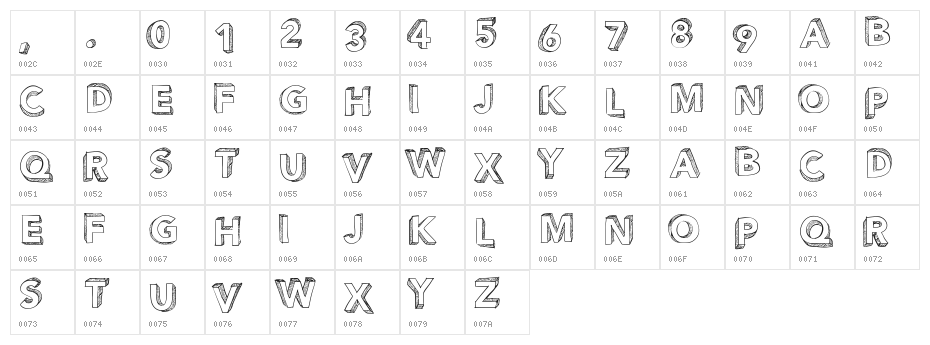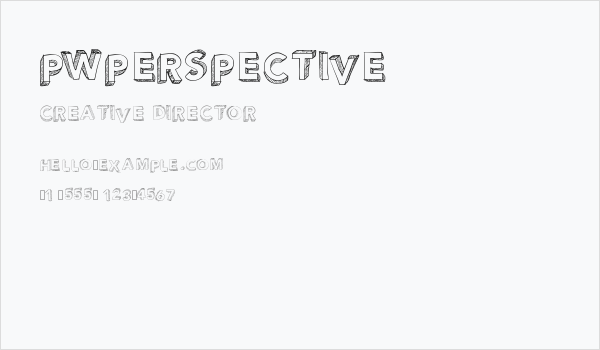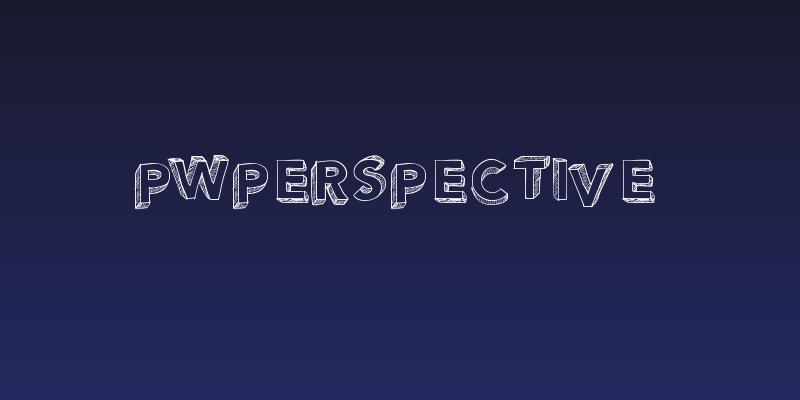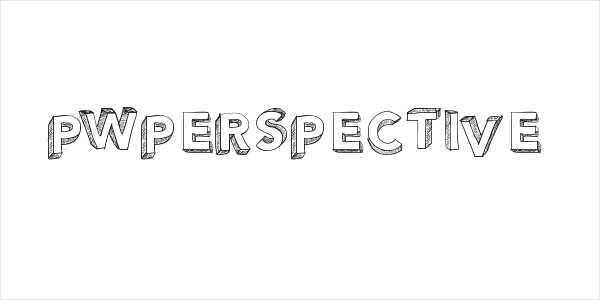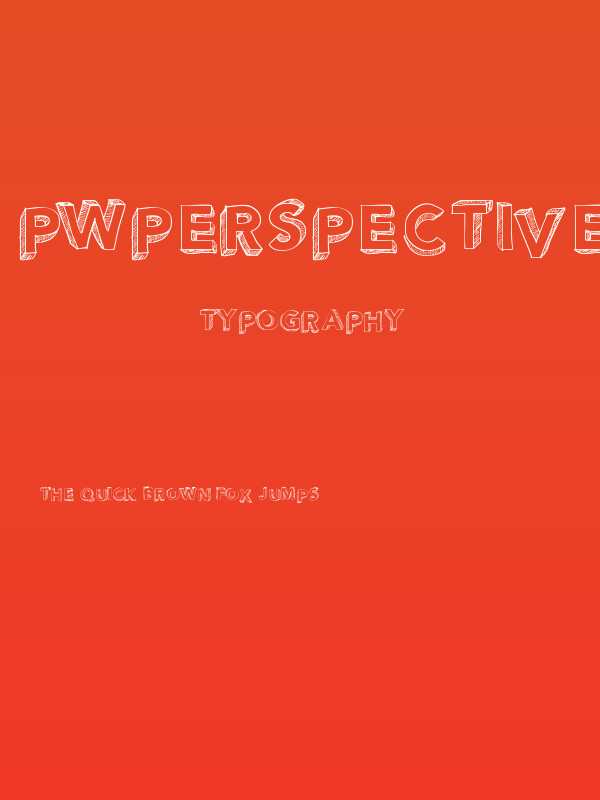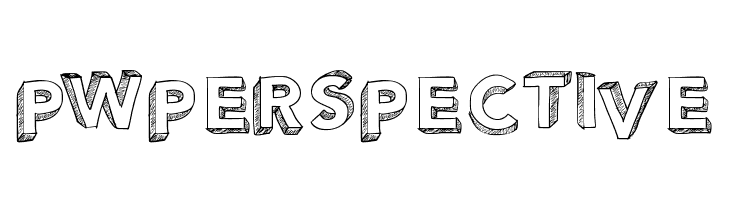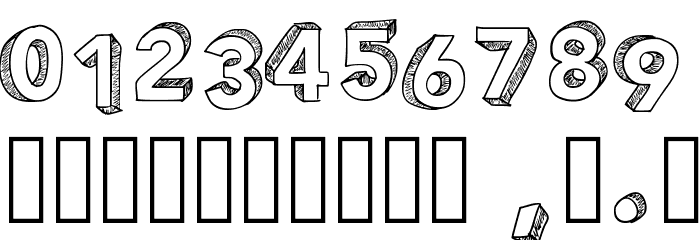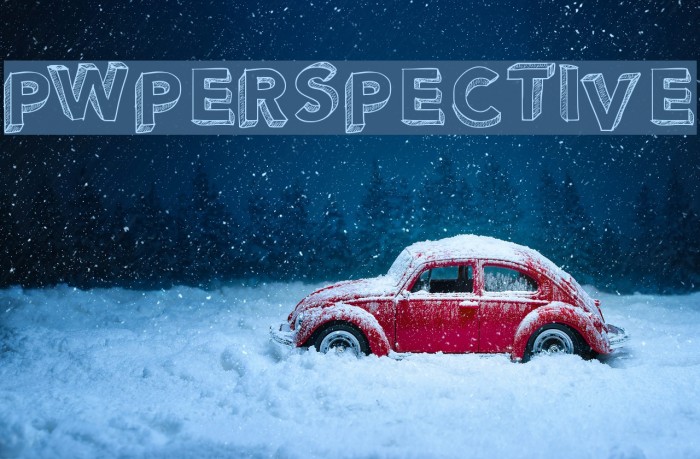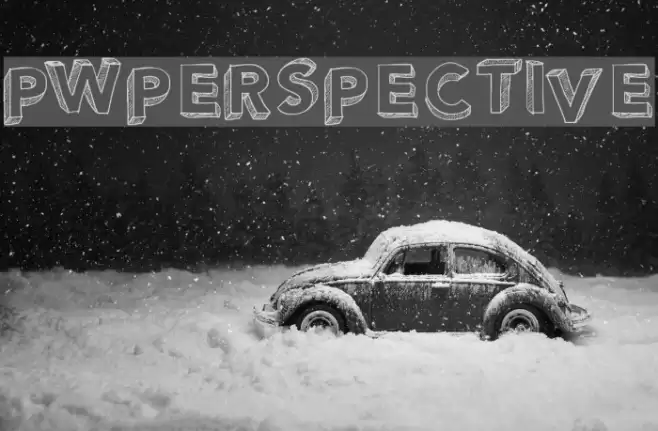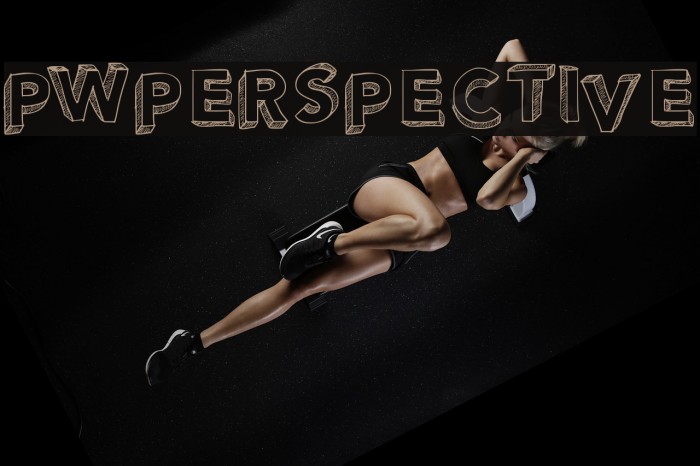
PWPerspective Font
PWPerspective Description
This font features a bold, three-dimensional design with a hand-drawn aesthetic. Each character is outlined with a sketch-like texture, giving it a playful and artistic feel. The letters are uppercase and maintain a consistent height, with a slight slant that adds to the dynamic appearance. The numerals and special characters follow the same style, ensuring uniformity across all symbols. The font's unique perspective effect makes it stand out, ideal for creative projects that require a distinctive and eye-catching typeface.